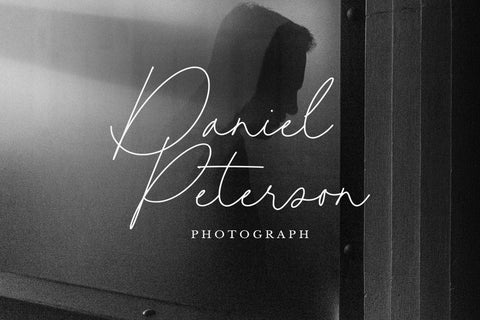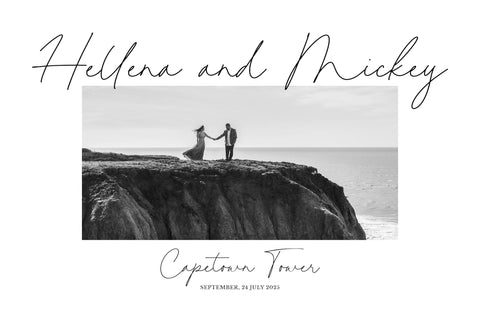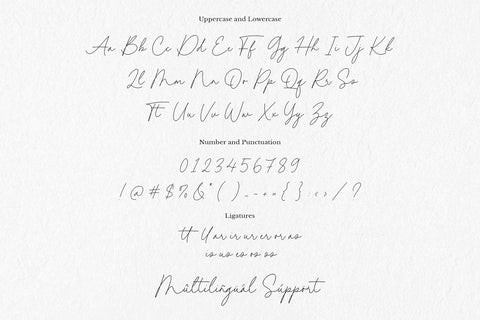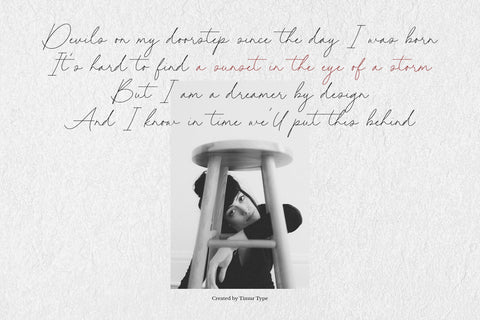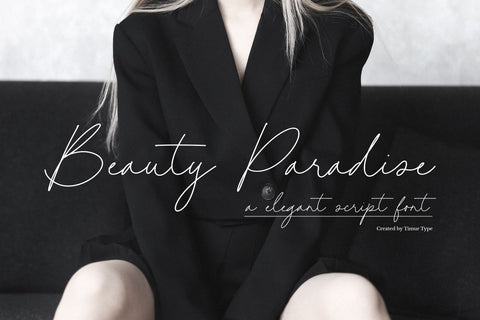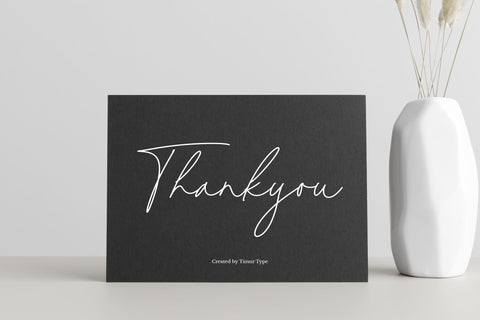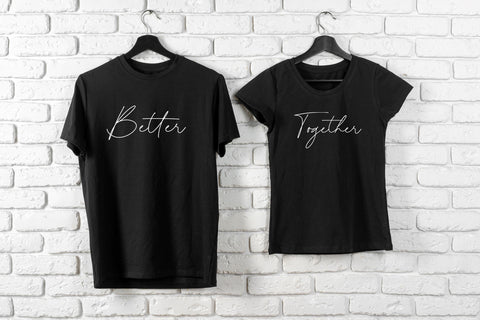
Beauty Paradise - Script font
Beauty Paradise is a Modern script font, which was created with great care and specially created for you .
Beauty Paradise is best for:
- logos, branding, & Signatures.
- Flyers, Album cover, Magazine, & Advertisements.
- Website design , design blogs, & fashion.
- Quote graphics for social media.
- and also it works great for other projects.
- Numerals and Punctuation (OpenType Standard)
- Accents (Multilingual characters)
- ligature